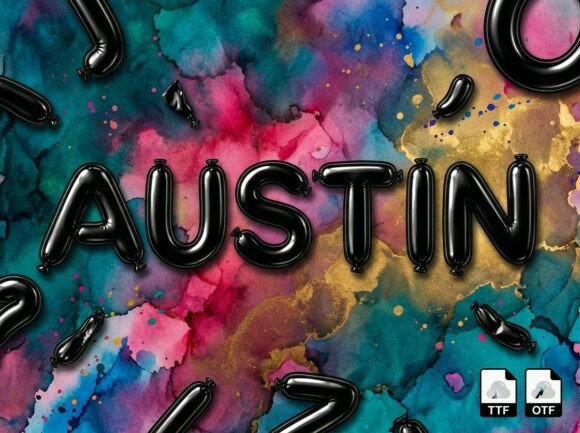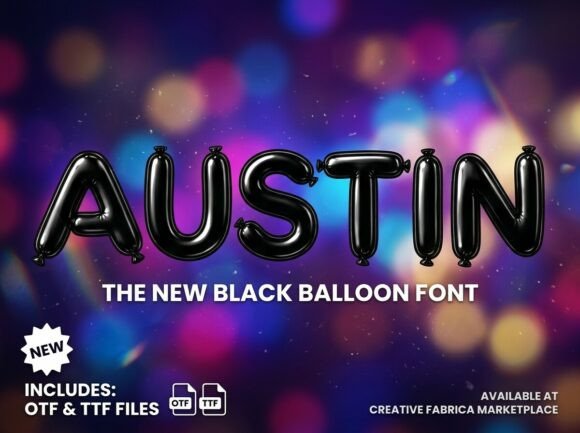
Austin Font: A Stunning Decorative Display Font for Creative Minds
Are you tired of using the same old fonts for your designs? Look no further than the Austin Font, a stunning decorative display font that’s sure to turn heads. With its unique artistic elements and strong visual personality, this font is perfect for creators who want to break away from the ordinary and make a statement.
What is Austin Font?
Austin Font is a decorative display font designed to be the center of attention. Its unique and artistic elements make it perfect for bold headlines, artistic logos, and creative packaging. This font is versatile enough to be used in a variety of design projects, from branding and advertising to packaging and editorial design.
Key Features of Austin Font
• Unique Artistic Elements: Austin Font features unique artistic elements that set it apart from other fonts. Its strong visual personality makes it perfect for designs that need to stand out.
• All-Caps Design: This font is an ALL-CAPS (Uppercase Only) display typeface, specifically designed for high-impact headlines, logos, and decorative initials.
• Professional and Polished Finish: Despite its bold and artistic design, Austin Font maintains a professional and polished finish, making it suitable for a wide range of design projects.
Why Choose Austin Font?
There are many reasons why designers and crafters should choose Austin Font for their projects. Here are a few:
• Stand Out from the Crowd: With its unique artistic elements and strong visual personality, Austin Font is sure to make your designs stand out from the crowd.
• Perfect for Headlines and Logos: This font is specifically designed for high-impact headlines, logos, and decorative initials, making it perfect for designs that need to make a statement.
• Versatile: Austin Font is versatile enough to be used in a wide range of design projects, from branding and advertising to packaging and editorial design.
• Professional and Polished: Despite its bold and artistic design, Austin Font maintains a professional and polished finish, making it suitable for a wide range of design projects.
Here are a few tips for using Austin Font:
• Use it for Headlines and Logos: Austin Font is perfect for headlines and logos that need to make a statement.
• Experiment with Different Sizes: This font looks great in large sizes, but it can also be used in smaller sizes for added impact.
• Pair it with Other Fonts: Austin Font can be paired with other fonts to create a unique and interesting design.
Austin Font is a stunning decorative display font that’s perfect for designers and crafters who want to break away from the ordinary and make a statement. With its unique artistic elements and strong visual personality, this font is sure to turn heads. Whether you’re designing a bold headline, an artistic logo, or creative packaging, Austin Font is the perfect choice.